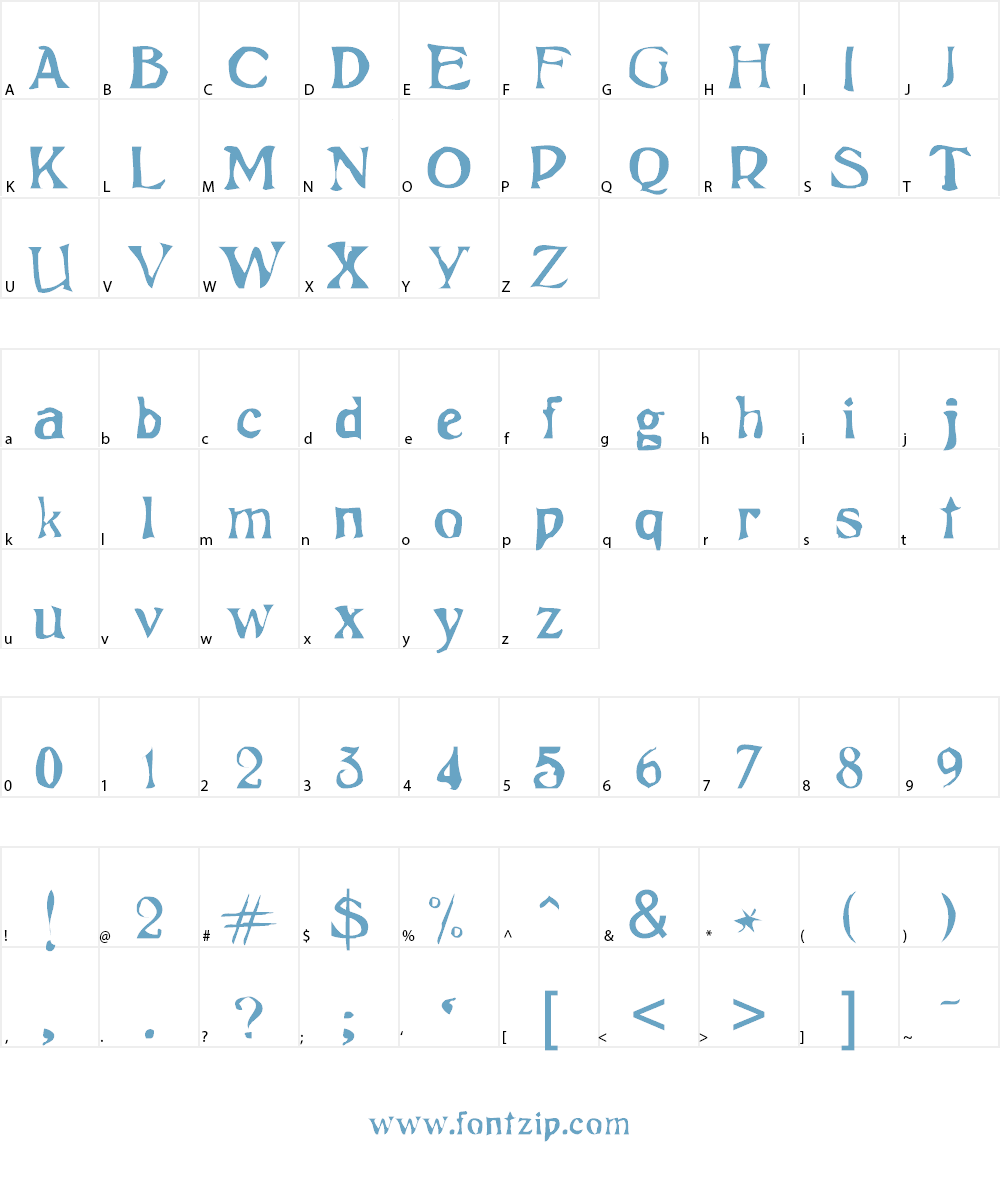
Extracted from a 1922 spanish edition of Sigmund Freud's "Psychopathologie des Alltagslebens" (1901).
Some characters have been reconstructed based on the original ones (example: made out of two -, etc) because the original book simply did not contain them. I hope you don't need to use the & very much...